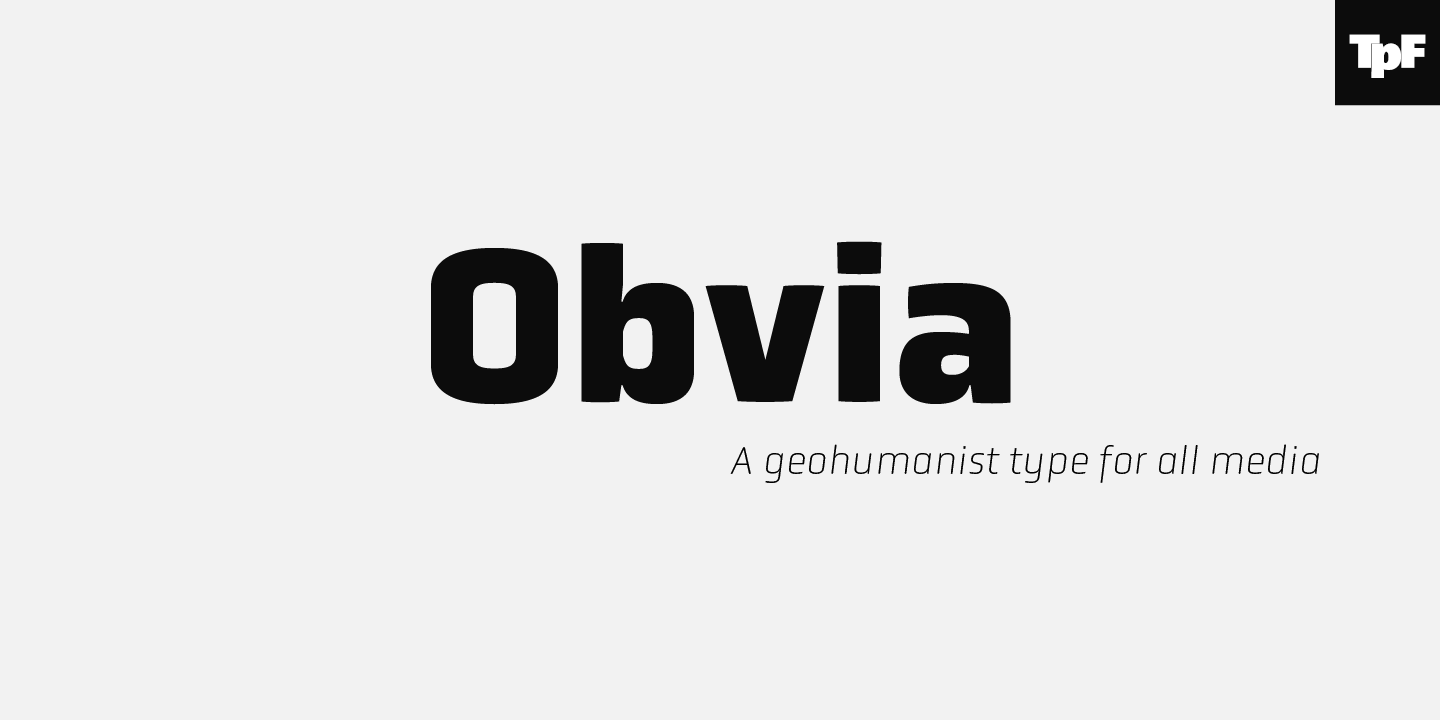
Obvia Font excels in modern web design, tech startup branding, mobile app interfaces, corporate presentations, contemporary advertising campaigns, digital magazine layouts, user interface design, and minimalist product packaging. This versatile sans-serif typeface brings clarity and contemporary sophistication to any project requiring clean, highly readable typography.
What makes Obvia Font exciting is its perfect balance between geometric precision and humanistic warmth that creates instant visual comfort. The font features optimized letterforms with subtle rounded corners and carefully calibrated spacing that ensure exceptional readability across all digital platforms and print applications. Its clean, approachable character makes complex information easy to digest while maintaining professional credibility. The typeface's contemporary aesthetic ensures your designs feel current and accessible to modern audiences.
The Obvia Font family includes Thin, Light, Regular, Medium, Bold, and Black weights, each available in upright and italic styles. The family offers extensive language support, advanced OpenType features, and carefully designed numerals that enhance its versatility for international branding and professional communications. These comprehensive variants provide designers with complete flexibility for creating cohesive visual hierarchies and sophisticated typographic systems.
Whether you're designing digital interfaces, corporate communications, or contemporary branding materials, Obvia Font Free Download delivers the clarity and professionalism your projects require. Its combination of geometric precision and human-centered design makes it perfect for communicating innovation, reliability, and forward-thinking vision with genuine contemporary appeal and universal accessibility.